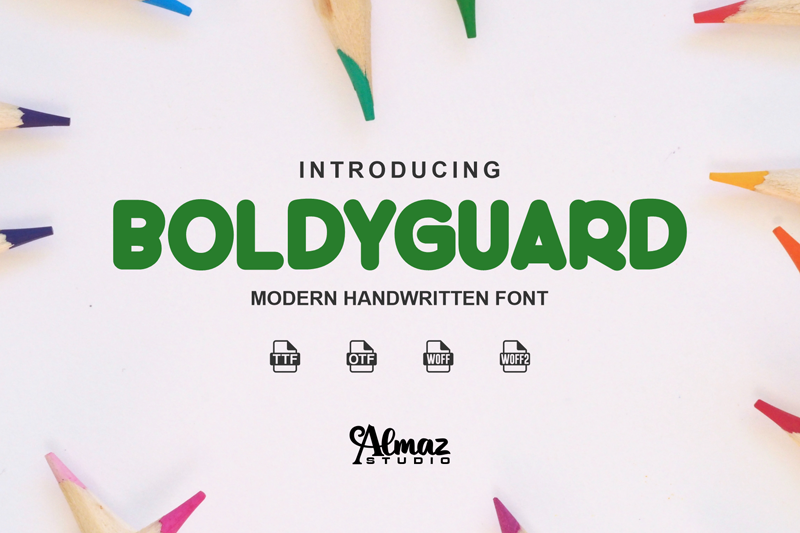
Boldyguard is a font that will make your design looks bold, modern, unique and fun. Perfect for playful kids font with cartoon style. This font is specially crafted for children, Kids, Boys, Kindergarten, Birthday, and Comic purposes. This demo font is for PERSONAL USE ONLY! Please contact me before any commercial use. My fonts for free use allowed only in personal project, non-profit and charity use. If you make money from using my fonts, Please purchase a commercial license here : https://www.creativefabrica.com/product/boldyguard/ But any donation are very appreciated. PayPal account for donation : https://www.paypal.me/almazstd Star your Designing with The Right Fonts. Grab your next favorite font today! THANK YOU... :) |